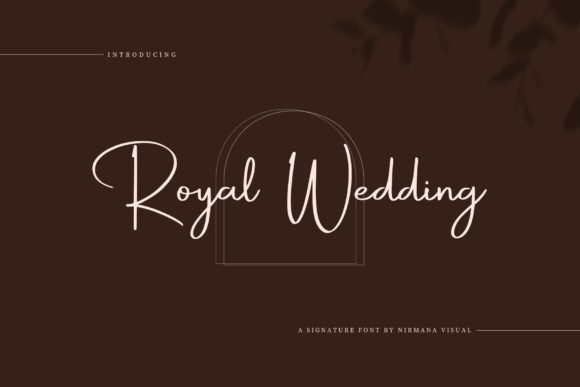
Behold the Royal Wedding Font, a breathtaking script font family designed to capture the essence of elegance and romance. Created by the renowned font artist Sigit Dwipa, Royal Wedding is a symphony of flowing lines and graceful curves, evoking the timeless beauty of a fairytale wedding.
Step into a world of enchantment, where every letter dances with joy, telling a tale of love and devotion. Royal Wedding is not just a font; it's an experience that transports you to a realm of dreams and desires. Whether you're crafting a wedding invitation, designing a heartfelt card, or embarking on a creative branding journey, Royal Wedding will elevate your project to new heights.
Indulge in the versatility of Royal Wedding, a font that effortlessly adapts to your creative vision. Its elegant strokes add a touch of sophistication to logos, t-shirt designs, and creative products, while its playful charm enlivens social media posts and digital marketing campaigns. Unleash your imagination and let Royal Wedding guide you through a world of endless possibilities.